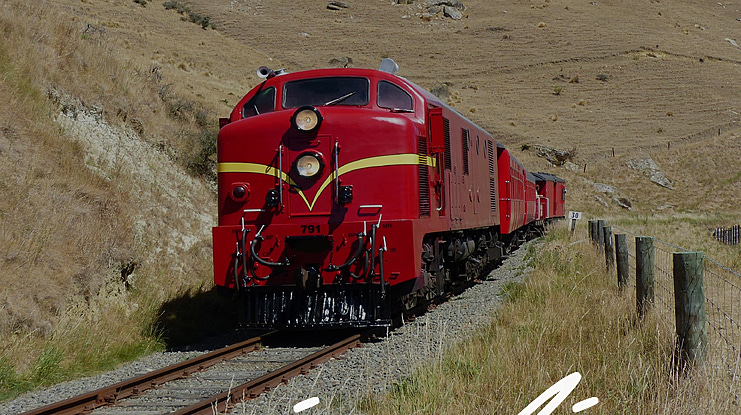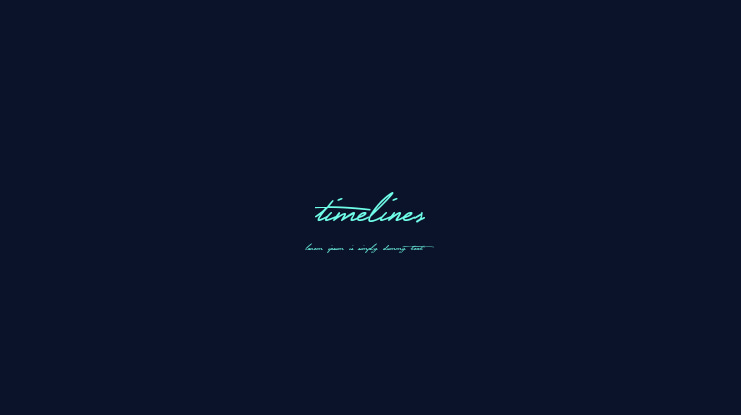
Timelines Font
Timelines is a cursive monoline script that contains different swashes. Best for overlaying on your photographs,videos, tattoos and romantic writings. Whatever you imagine, Timelines will bring out the best result for your project!